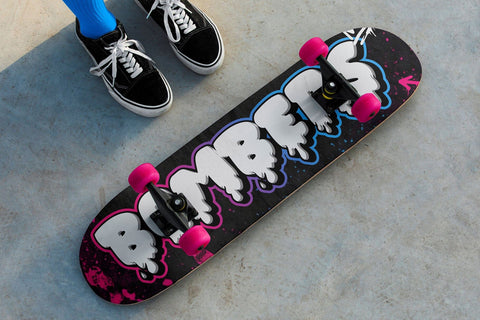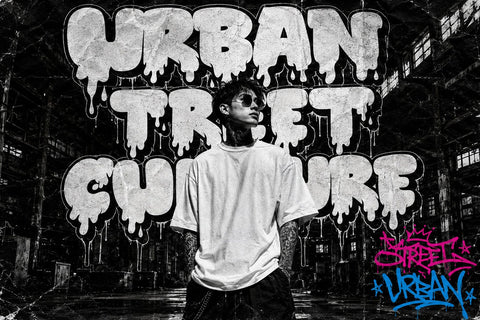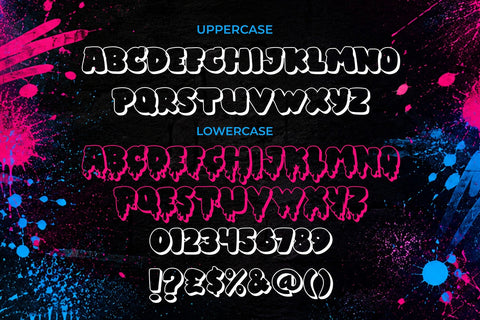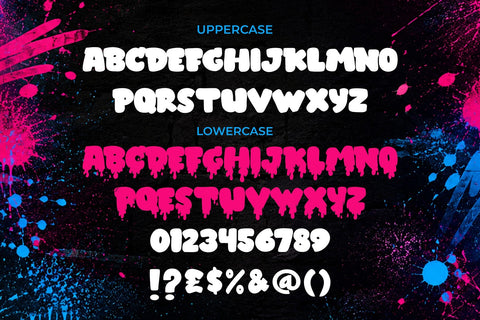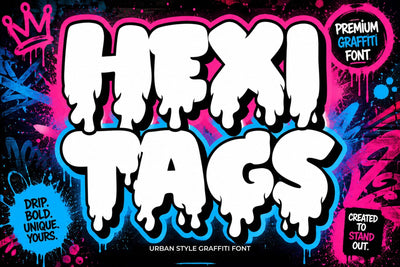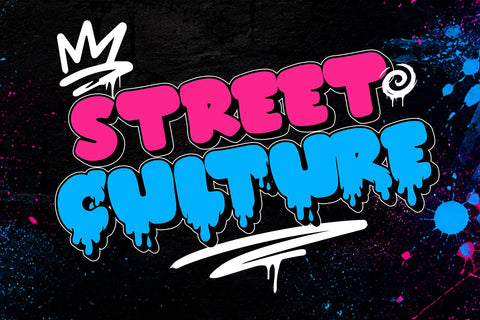
Hexitags – 3D Dripping Graffiti Font
Bring raw street energy, bold attitude, and eye-catching urban character to your designs with Hexitags, a powerful 3D dripping graffiti font created for designers who want their typography to instantly stand out. Inspired by expressive graffiti lettering, street art culture, urban tags, and bold throw-up lettering, Hexitags combines a strong display structure with a dripping visual style that feels loud, energetic, and unmistakably street.
The dramatic dripping details give every letter a unique graffiti personality. Each character feels like it was painted quickly and confidently on a city wall, while the bold shapes create a strong visual impact in large-scale typography. Hexitags is designed to grab attention from the first glance, making it a perfect choice for headlines, logos, posters, apparel graphics, and high-impact branding projects.
This 3D dripping graffiti font includes uppercase letters, lowercase letters, numbers, and punctuation, giving you a complete character set for creating expressive typography across a wide range of creative projects. The font also includes multilingual support, allowing your designs to reach a broader audience and work across different language-based projects.
Hexitags is especially powerful for streetwear design, graffiti posters, urban branding, hip hop artwork, rap merchandise, music visuals, album covers, event posters, and social media graphics. Its chunky letterforms and dripping edges create a strong visual identity that works beautifully with bright colors, dark backgrounds, neon effects, paint textures, and layered graphic compositions.
Use Hexitags to create a bold graffiti logo, an urban clothing design, or a powerful headline for a street-inspired campaign. The font has a natural ability to make simple words feel more dynamic and expressive. Whether you are creating a single-word statement or a larger typographic composition, the letters are designed to create a strong visual rhythm and an unmistakable graffiti atmosphere.
The 3D-inspired structure makes Hexitags especially suitable for designs that need depth and dimension. Add shadows, outlines, gradients, highlights, or vibrant color combinations to build your own unique graffiti style. The bold letterforms remain highly visible and impactful, making them suitable for both digital artwork and printed designs.
Hexitags is also a great choice for YouTube thumbnails, gaming graphics, urban stickers, skateboard graphics, graffiti art projects, street posters, festival artwork, and creative merchandise. Its energetic appearance makes it perfect for projects that need a strong visual hook and a modern urban feeling.
For designers searching for a bold graffiti font, dripping font, street art font, urban display font, or 3D graffiti typeface, Hexitags offers a distinctive and memorable style. It is expressive, aggressive, playful, and full of street character.
Create typography that feels loud. Make your words look painted, dripping, and ready to take over the wall.
Hexitags is built for bold ideas, urban energy, and designs that refuse to blend in.
- 3D Dripping Graffiti Style
- Bold Urban Display Design